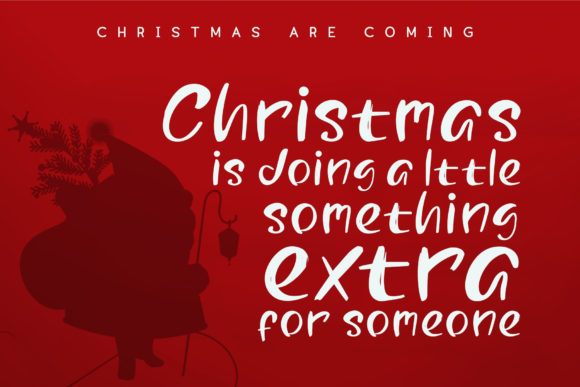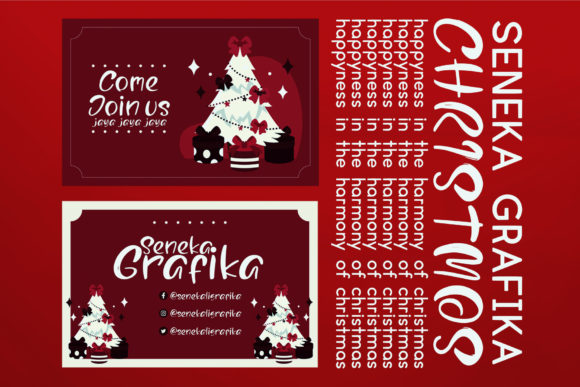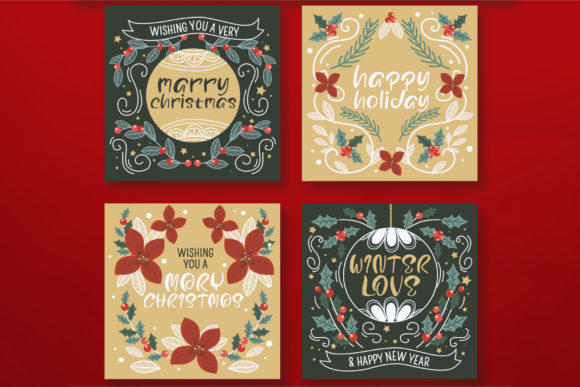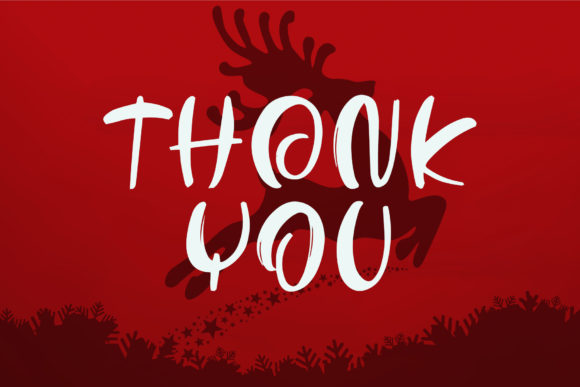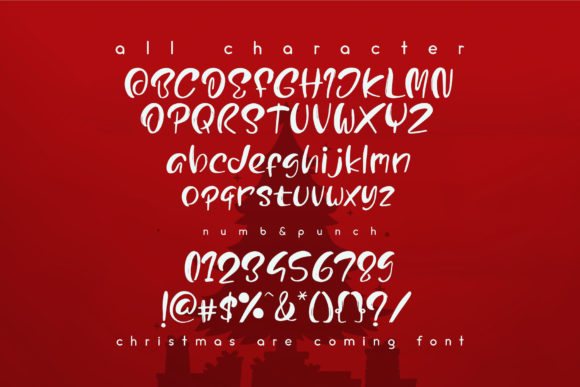
Christmas Are Coming Font: Spread Holiday Cheer with this Festive Typeface
As the holiday season approaches, designers and crafters are on the lookout for the perfect typography to add a touch of festive flair to their creations. Look no further than the Christmas Are Coming Font, a delightful and trendy handwritten font that’s sure to bring Christmas vibes to your designs. In this article, we’ll dive into the world of Christmas Are Coming Font, exploring its features, benefits, and uses, as well as provide tips on how to make the most of this merry typeface.
Introducing Christmas Vibe: A Festive and Chic Handwritten Font
Christmas Vibe, also known as Christmas Are Coming Font, is a festive and chic handwritten font designed to add a touch of holiday cheer to your creations. This beautiful typeface boasts a playful, cursive style that’s perfect for crafting eye-catching titles, headings, and captions for your holiday-themed designs. With its elegant and refined appearance, Christmas Vibe is ideal for a wide range of projects, from Christmas cards and invitations to social media graphics and blog posts.
Why Choose Christmas Are Coming Font?
So, what sets Christmas Are Coming Font apart from other festive typefaces? Here are just a few reasons why designers and crafters love this font:
- Unique and eye-catching design: Christmas Vibe features a distinctive, hand-drawn design that’s sure to grab attention and add a touch of holiday magic to your creations.
- Versatile and adaptable: This font is perfect for a wide range of projects, from formal and informal designs to digital and print applications.
- Easy to read and use: Despite its ornate appearance, Christmas Are Coming Font is surprisingly legible and easy to use, making it perfect for designers of all skill levels.
- Trendy and on-point: This font is right on-trend for the holiday season, ensuring your designs feel fresh and contemporary.
How to Use Christmas Are Coming Font in Your Designs
Now that we’ve covered the benefits of Christmas Are Coming Font, let’s explore some practical ways to use this font in your designs:
- Holiday cards and invitations: Add a touch of festive flair to your Christmas cards, invitations, and party announcements with this beautiful font.
- Social media graphics: Use Christmas Are Coming Font to create eye-catching social media graphics, including Facebook posts, Instagram stories, and Twitter headers.
- Blog posts and articles: Add some holiday cheer to your blog posts and articles with this festive font, perfect for titles, headings, and captions.
- Digital and print projects: Christmas Are Coming Font is perfect for a wide range of digital and print projects, including flyers, brochures, and posters.
Tips for Getting the Most Out of Christmas Are Coming Font
To make the most of Christmas Are Coming Font, here are a few design tips to keep in mind:
- Pair with complementary fonts: Combine Christmas Are Coming Font with complementary fonts to create visual interest and add depth to your designs.
- Experiment with colors and textures: Don’t be afraid to get creative with colors and textures to add an extra layer of festivity to your designs.
- Keep it simple and elegant: While Christmas Are Coming Font is perfect for adding a touch of whimsy, remember to keep your designs simple and elegant to ensure maximum impact.
Christmas Are Coming Font is a beautiful and festive typeface that’s sure to add a touch of holiday cheer to your designs. With its unique and eye-catching design, versatility, and ease of use, this font is perfect for designers and crafters looking to create stunning holiday-themed creations. By following the tips outlined in this article, you’ll be able to make the most of Christmas Are Coming Font and create designs that are sure to spread holiday cheer.